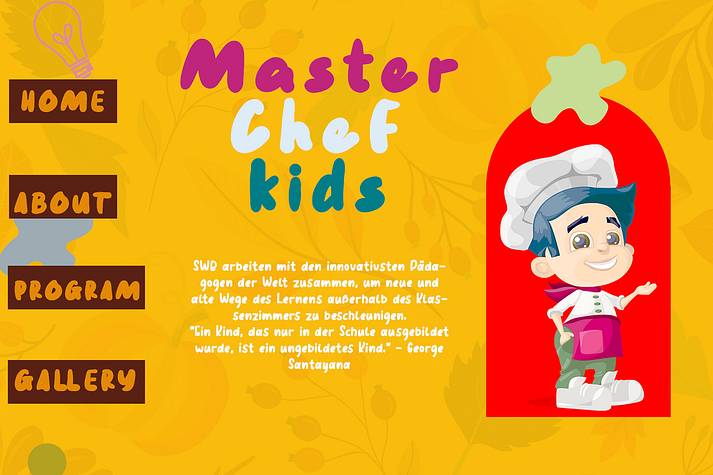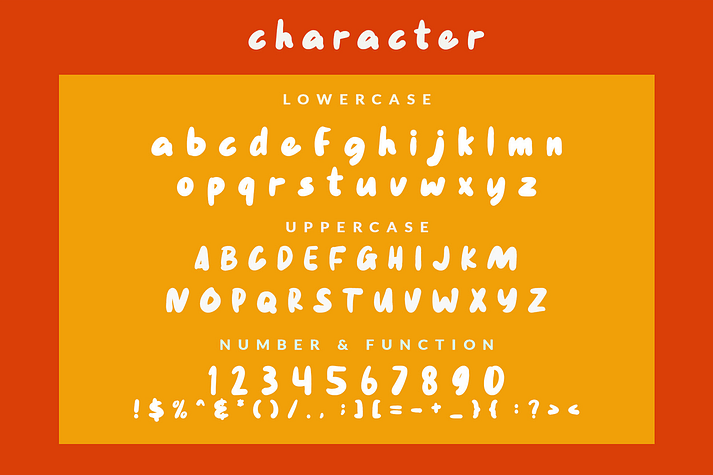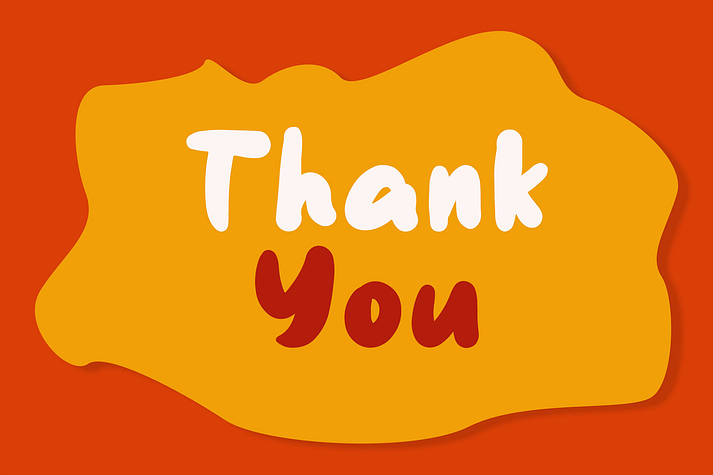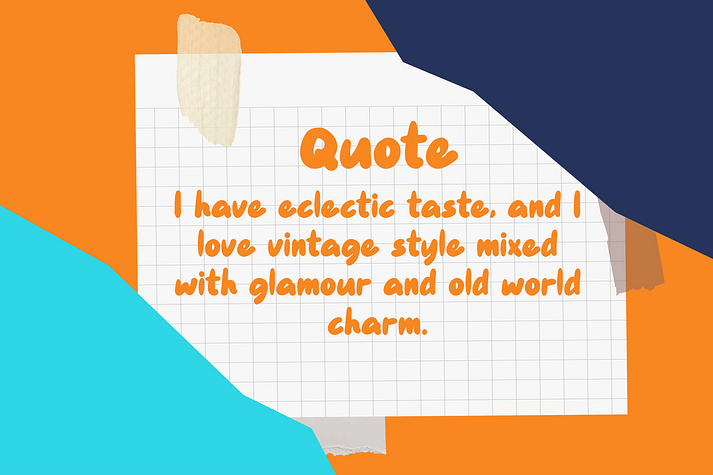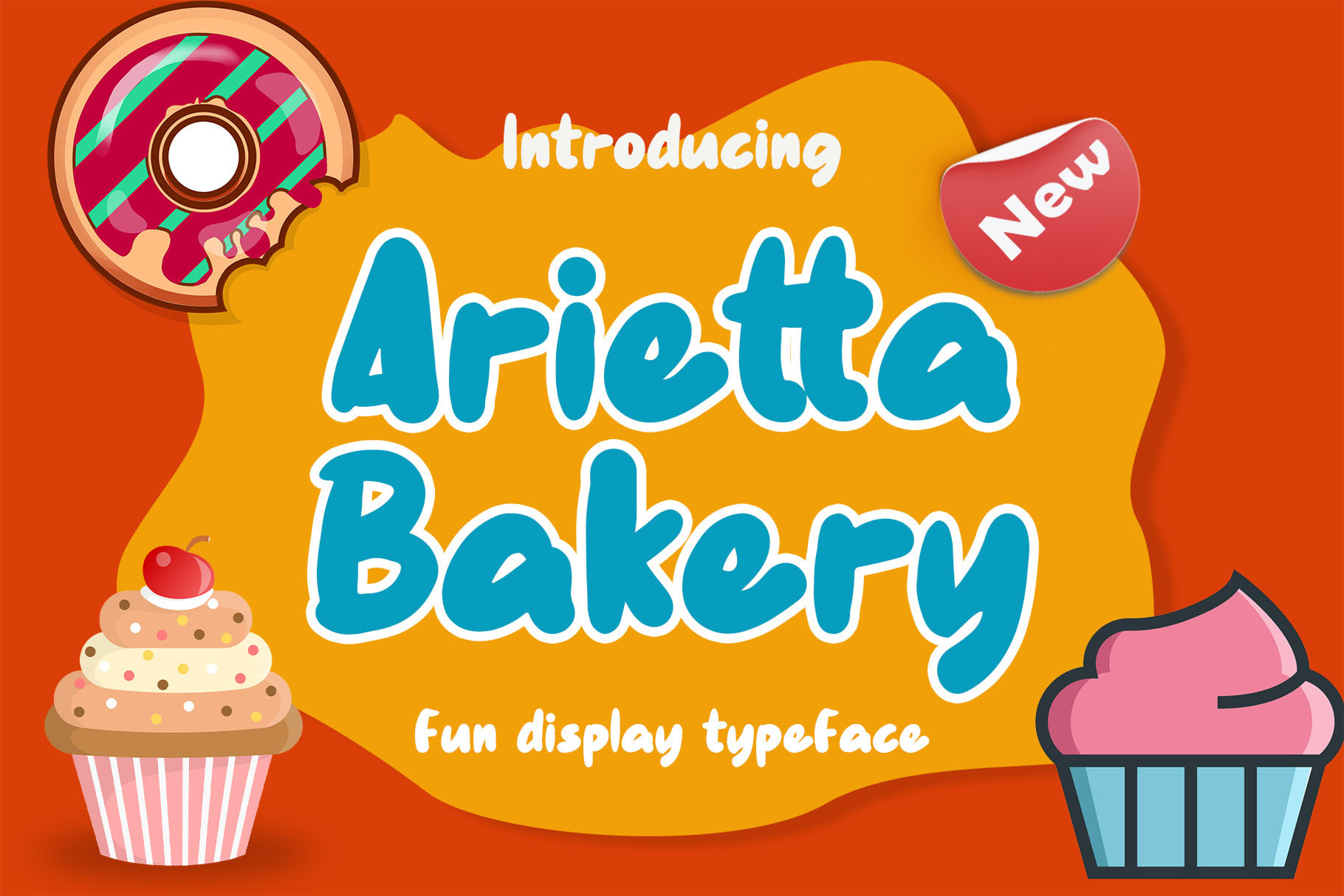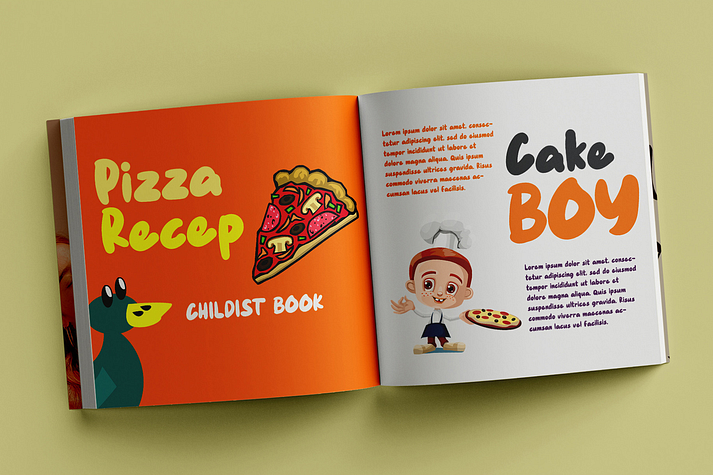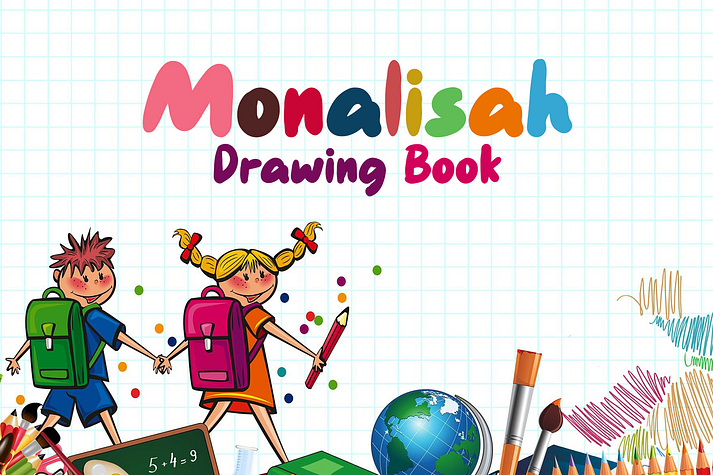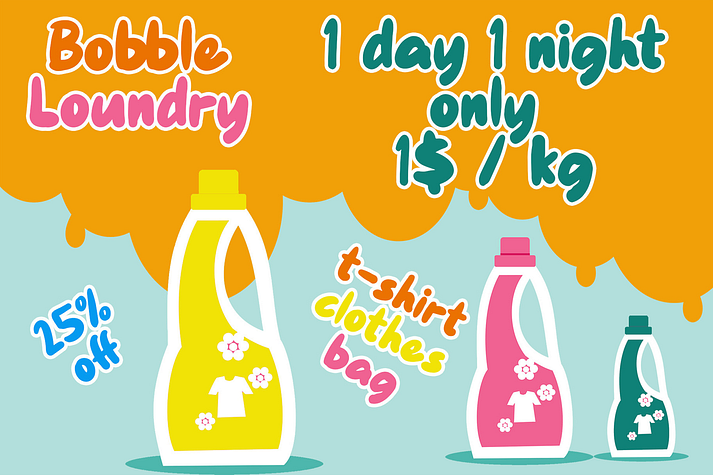
Arietta Bakery
Arietta Bakery is a font family published by Wildan Type.
Arietta Bakery is a cool and fun display font. No matter the topic, this font will be an incredible asset to your fonts’ library, as it has the potential to elevate any creation.